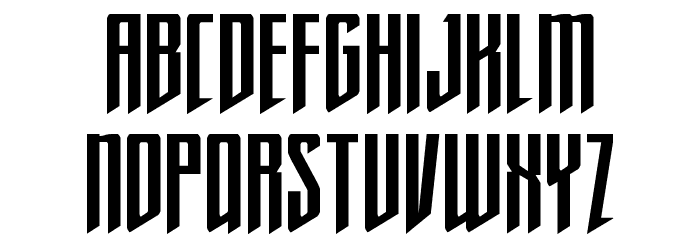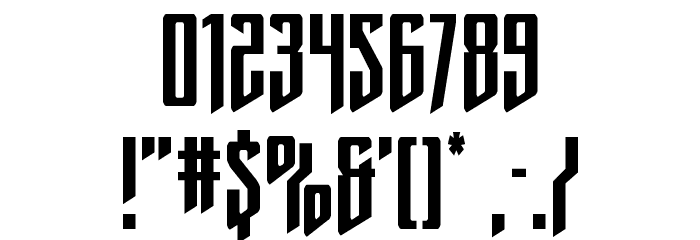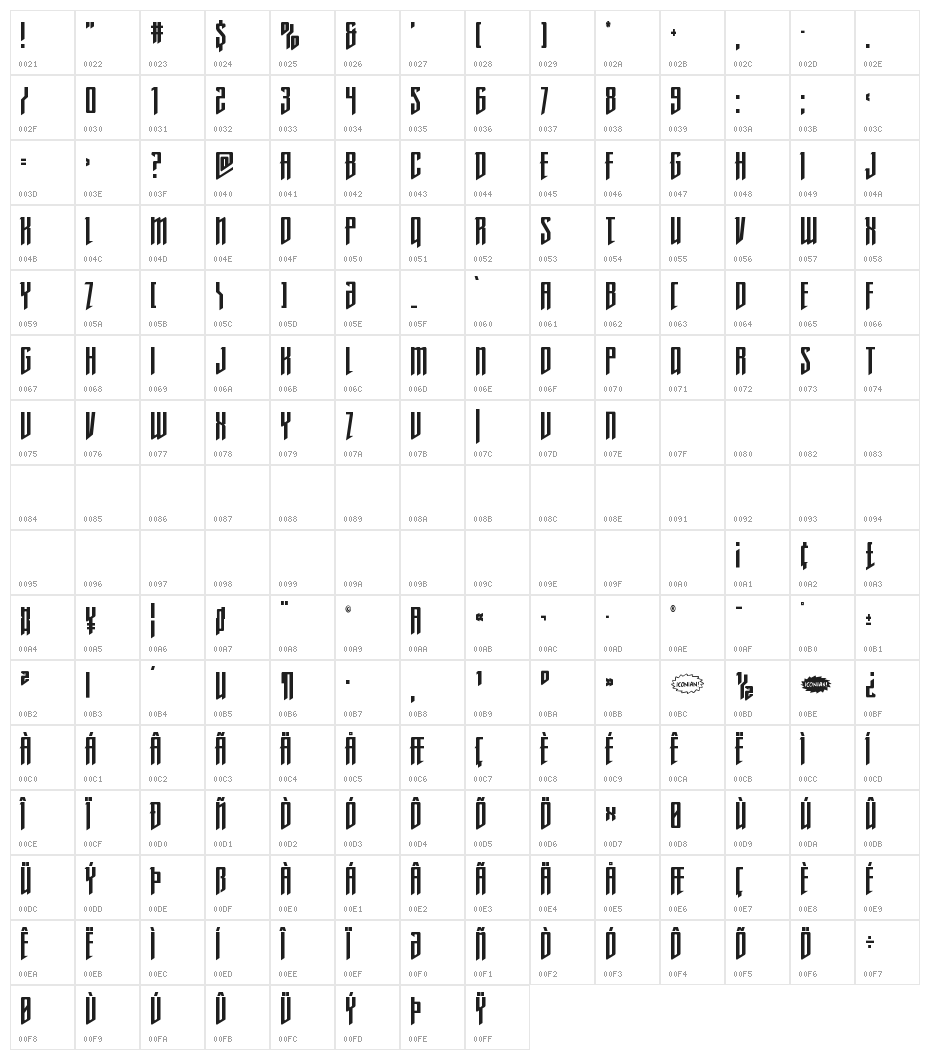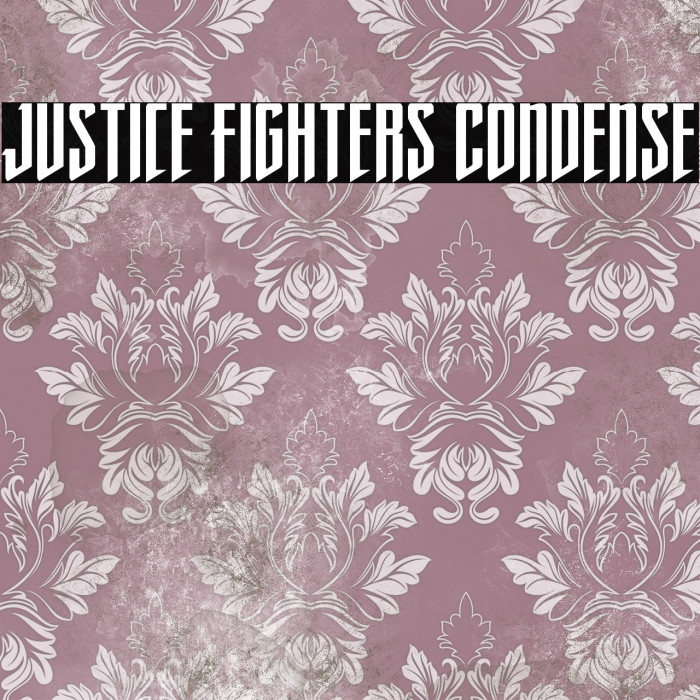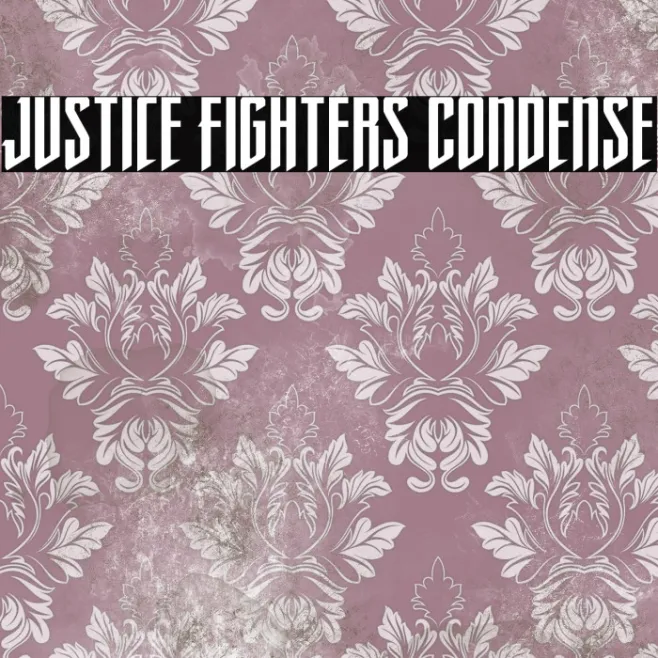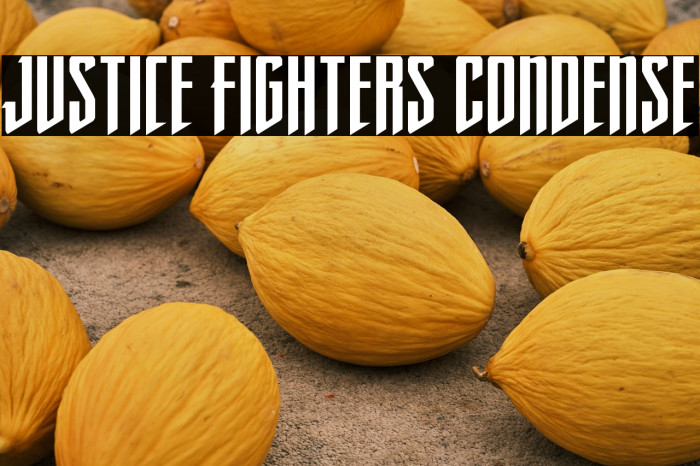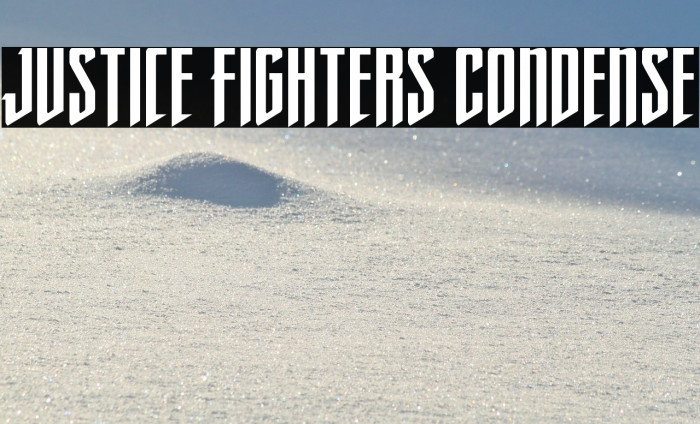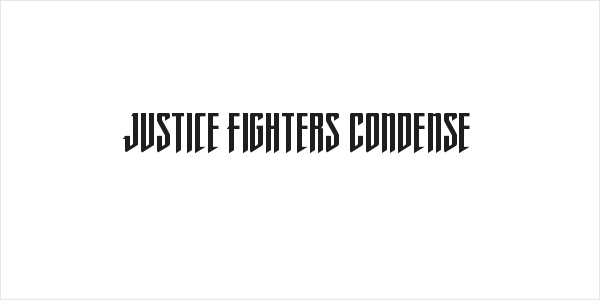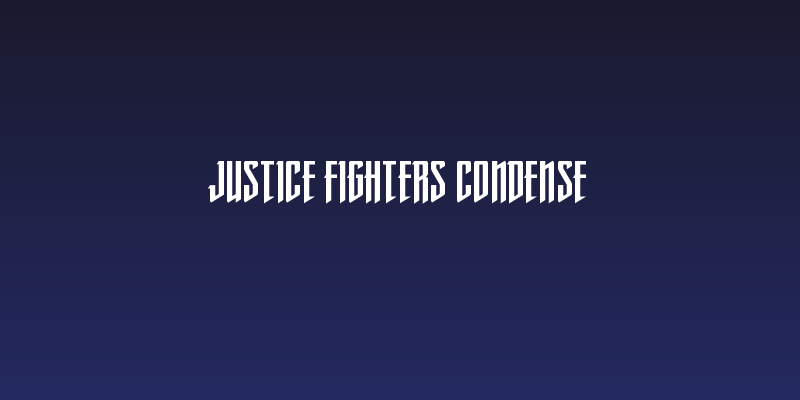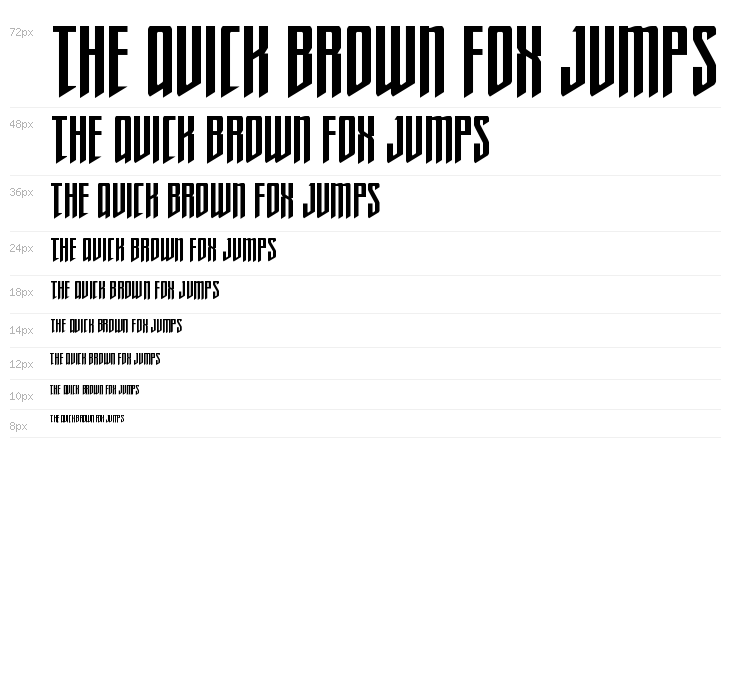
Justice Fighters Condense Font
This font features a bold and condensed style with sharp, angular edges that convey a sense of strength and modernity. The uppercase letters are tall and narrow, creating a striking and impactful appearance. The lowercase letters maintain the same condensed form, ensuring consistency across the typeface. Numbers and special characters are designed to match the boldness and angularity of the alphabet, making them suitable for dynamic and attention-grabbing designs. The overall aesthetic is reminiscent of action or superhero themes, making it ideal for projects that require a powerful and energetic visual impact.
A bold, condensed font with sharp, angular edges for a modern, powerful look.
- Proposed Projects: Ideal for movie posters, video game titles, sports branding, and dynamic logos.
- Character Spacing: Tight